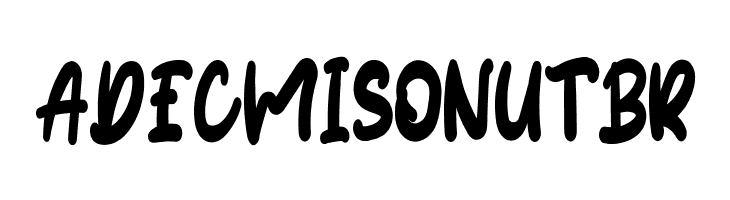
• Burgundy
A bold, expressive handwritten font with fluid, dynamic strokes.
A playful, hand-drawn font with bold, irregular outlines.
• Cabaret Normal
A flowing, cursive font with elegant, sweeping strokes and a classic calligraphic style.
• Cabello Script
A modern script font with flowing lines and rounded edges.
• Cadeaulx!"
• CadosaScript
An elegant script font with fluid, connected strokes and a handwritten style.